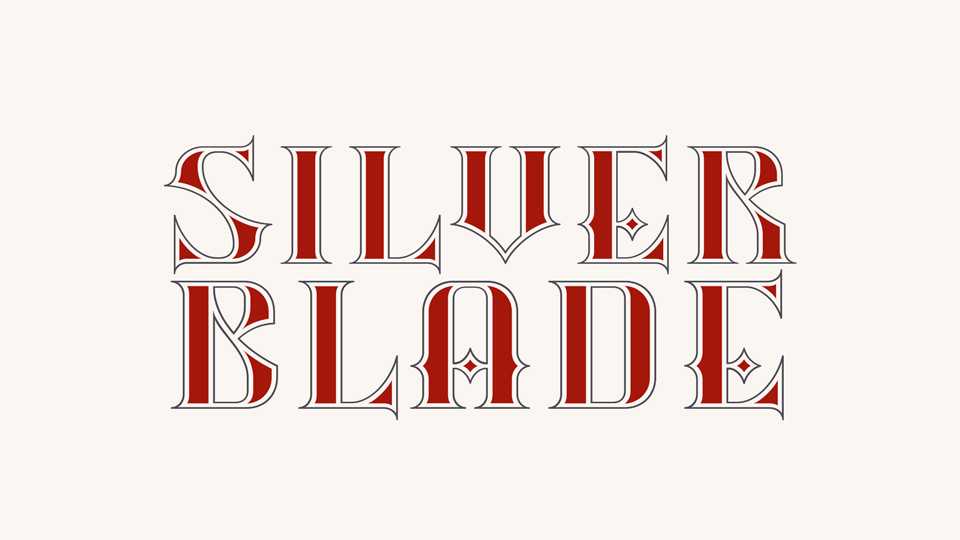
Download Silverblade font family, a versatile decorative typeface designed for initials or headlines. Silverblade comes with 5 styles that can be perfectly combined together to create sophisticated typography.
Designer: Frank Baranowski